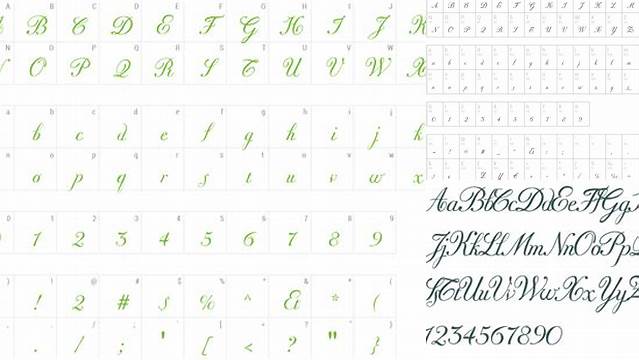
Donna Bodoni CE Script Font: Free Download and Design Guide
Hey design enthusiasts! Are you searching for a touch of elegance and sophistication for your next project? Look no further, because the Donna Bodoni CE Script font might just be the perfect match! This article is your ultimate guide, offering a free download and diving into the intricacies of this stunning typeface. We'll explore its origins, characteristics, and the best ways to incorporate it into your designs. So, buckle up, guys, and let's get started on this typographic adventure!
Unveiling the Allure of Donna Bodoni CE Script Font
Firstly, what makes Donna Bodoni CE Script font so special, you might ask? Well, it's a captivating blend of classic elegance and contemporary flair. This font, a digital adaptation of the classic Bodoni typeface, boasts a graceful script style, characterized by its delicate strokes, high contrast between thick and thin lines, and a distinct calligraphic feel. This script font is often favored for its ability to convey sophistication, luxury, and a timeless appeal. Imagine it gracing the cover of a high-end magazine, the invitation to a glamorous event, or the logo of a prestigious brand. The versatility of Donna Bodoni CE Script font allows it to shine in various design contexts, adding a touch of class and refinement wherever it's used. The font's design itself is carefully crafted, ensuring legibility even in larger bodies of text, a factor that enhances its usability beyond mere display purposes. Unlike some overly ornate script fonts that can be difficult to read, Donna Bodoni CE Script font strikes a balance between artistic expression and functional design. This makes it a go-to choice for a wide range of projects, from branding and advertising to editorial design and web graphics. Beyond its aesthetic appeal, the Donna Bodoni CE Script font also brings with it a sense of history and tradition. Bodoni, as a typeface family, has its roots in the late 18th century, thanks to the Italian printer Giambattista Bodoni. He revolutionized the world of typography with his elegant and modern designs, which influenced countless typographers. By using Donna Bodoni CE Script font, you're not just choosing a typeface; you're connecting with a rich legacy of design excellence. So, if you are seeking to create designs that stand out, leaving a lasting impression on your audience, this font is definitely worth considering. Now that you know the fundamentals, let's dive into the practical side of things – where to get this awesome font!
Mastering the Art of Using Donna Bodoni CE Script Font in Your Designs
- Logo Design: Donna Bodoni CE Script font is ideal for creating elegant and sophisticated logos. Consider using it for businesses in the fashion, beauty, or luxury sectors. Experiment with different sizes and weights to find the perfect balance. Often, combining this script font with a complementary sans-serif font for the company's tagline can create a visually appealing logo.
- Invitations and Stationery: Elevate your event invitations, greeting cards, and personal stationery with the charm of this script font. The flowing letterforms add a touch of personality and sophistication, making your designs memorable. Be sure to use a high-quality paper stock to complement the font's elegance.
- Headlines and Titles: Use Donna Bodoni CE Script font sparingly for headlines and titles. While it can make a bold statement, using it excessively can be overwhelming. Pairing it with a clean, readable font for body text will create a harmonious design.
- Branding Materials: Integrate the Donna Bodoni CE Script font into your brand's visual identity. This can include websites, social media graphics, and marketing materials. Consistency across all platforms will help create a strong brand presence.
- Web Design: Use the font in headings, call-to-action buttons, and decorative elements to enhance your website's visual appeal. Ensure that the font is easily readable on different screen sizes and devices. Consider using a web-safe font fallback for optimal performance.
When using this font, keep the following tips in mind. First, always focus on legibility. Avoid using overly small font sizes or long blocks of text, as this can make the font difficult to read. Second, experiment with kerning and leading. Adjusting the spacing between letters and lines can significantly impact the overall appearance of your design. Third, consider the context of your design. Match the font to the project's purpose and audience. Fourth, choose the right colors. The font pairs well with both light and dark backgrounds, but ensure sufficient contrast for easy readability. Fifth, practice, practice! The more you work with the Donna Bodoni CE Script font, the more familiar you'll become with its nuances and how to best use it to create stunning designs. By following these tips, you can effectively use the Donna Bodoni CE Script font to add a touch of elegance and sophistication to your creative projects. Embrace the beauty and versatility of this font, and let your designs shine!
Conclusion: Embrace the Elegance with Donna Bodoni CE Script Font
In conclusion, the Donna Bodoni CE Script font is a fantastic choice for designers seeking to add a touch of class and refinement to their work. With its elegant script style and timeless appeal, this font can elevate various projects, from logos and invitations to branding materials and website designs. By understanding its origins, characteristics, and best practices for its use, you can harness its potential to create designs that are both visually stunning and memorable. Remember to download the font from a reliable source, review the license agreement, and experiment with different design techniques to maximize its impact. So go ahead, guys! Download this amazing font and let your creativity flow. Happy designing!